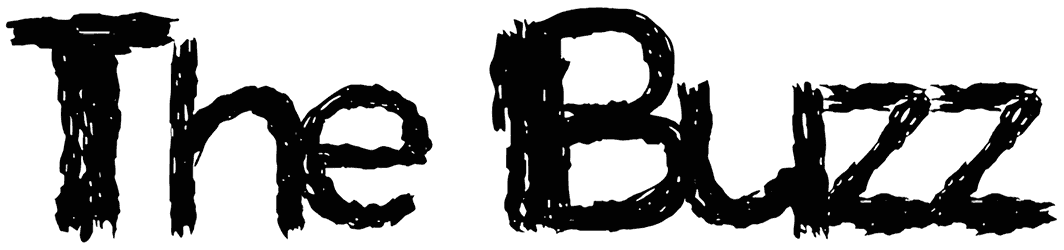
The Buzz Font
We believe that a horror font such as The Buzz can widen your selection range and take the quality of your artwork beyond all imagination. Due to its grunge style, this masterpiece can convey a vibe of smudginess, exoticism, or vivacity to the audience’s minds.